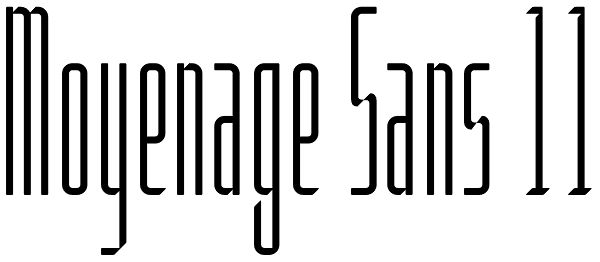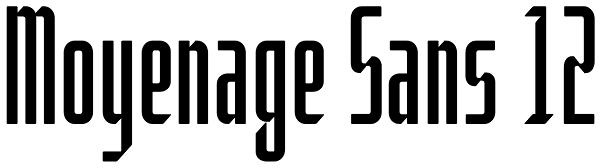
Moyenage Sans
Moyenage is a modern replica of blackletter. Whereas the calligraphic typeface family can be used in shorter texts and posters, the sans-serif variation is rather experimental project which may find its use on music cover design, occasional...